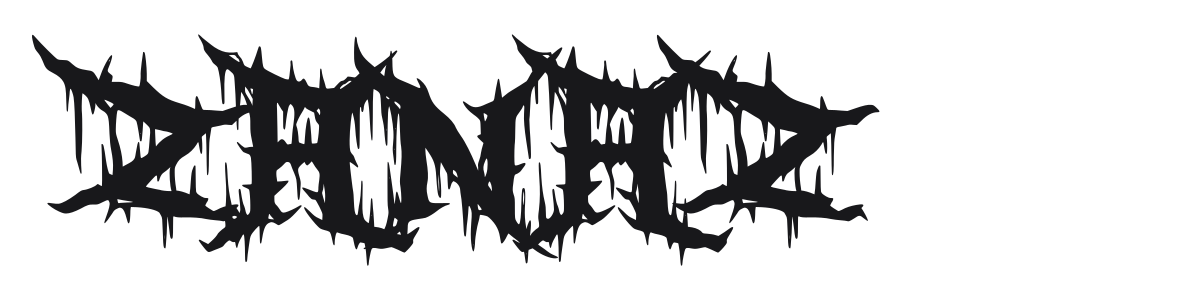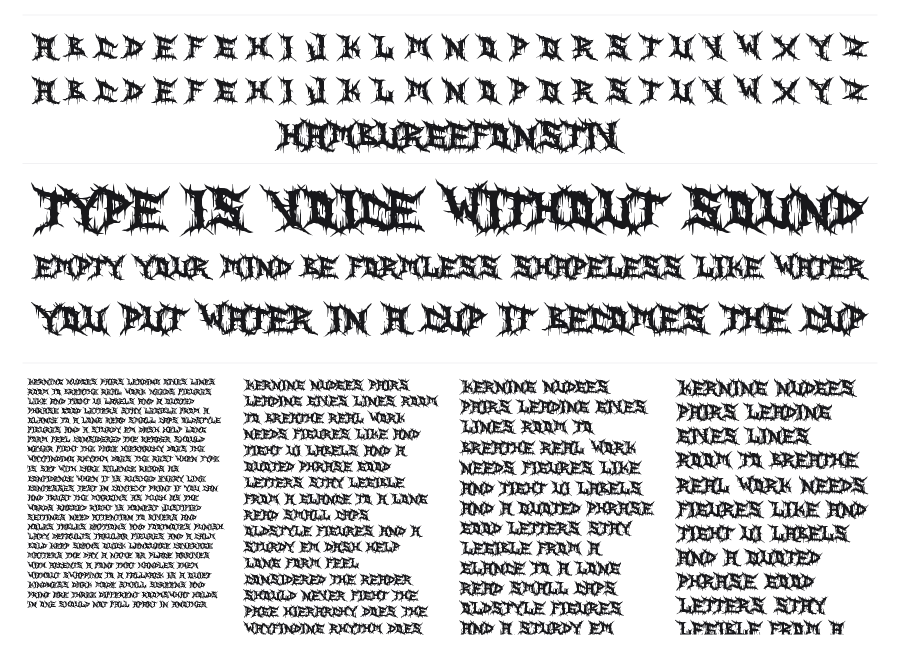
Zanaz
Zanaz is a heavy blackletter display font dripping with sharp spikes and jagged thorns on nearly every stroke. Rooted in gothic letterform tradition but pushed into extreme metal-logo territory, it carries unmistakable aggression and dark energy. Strong for band logos, horror posters, and any context that demands raw, menacing typographic impact.